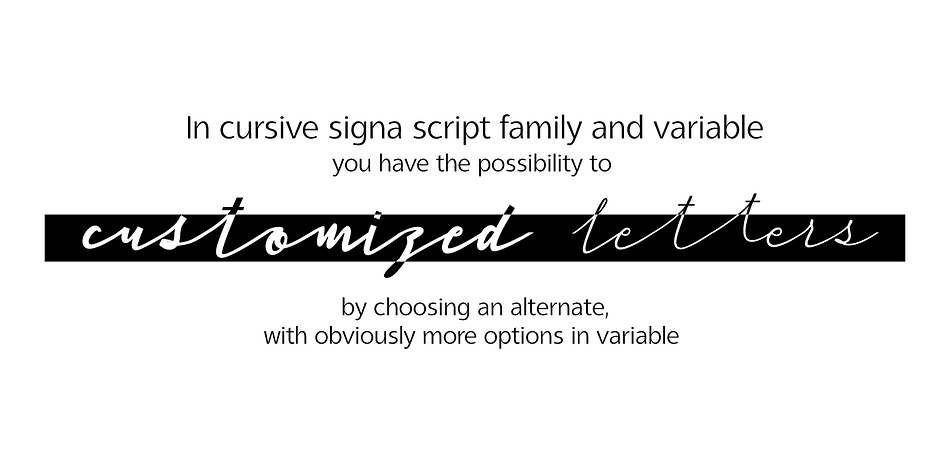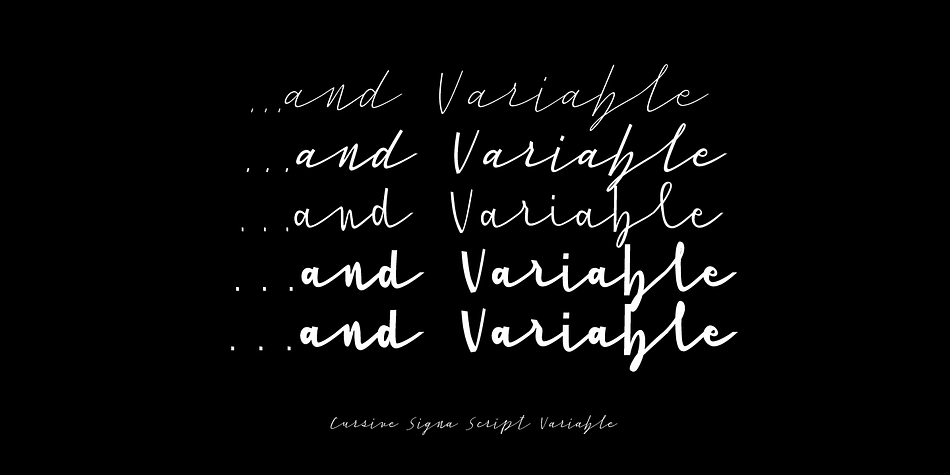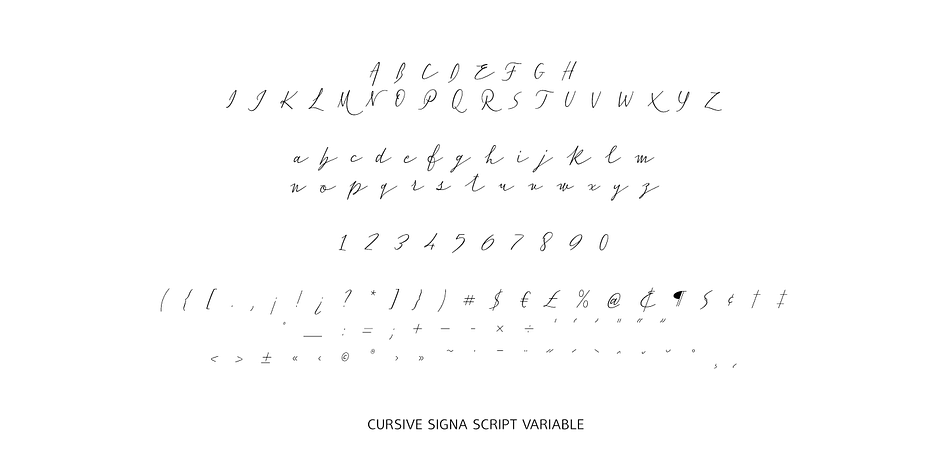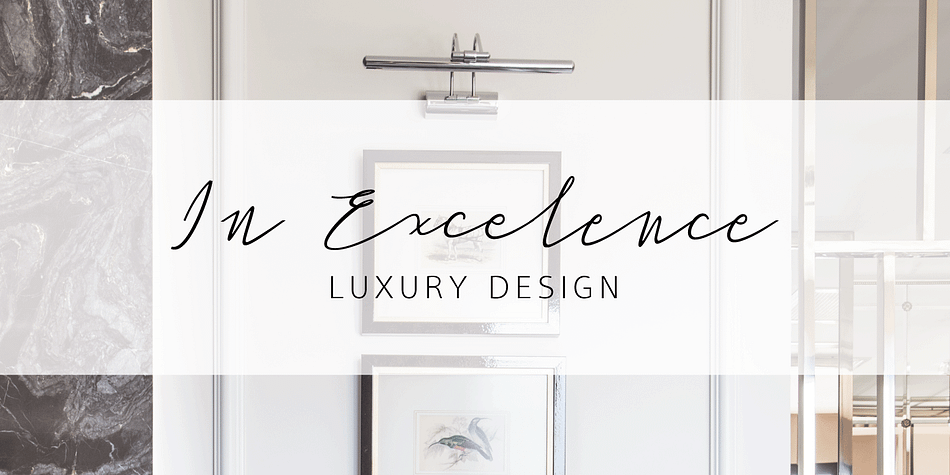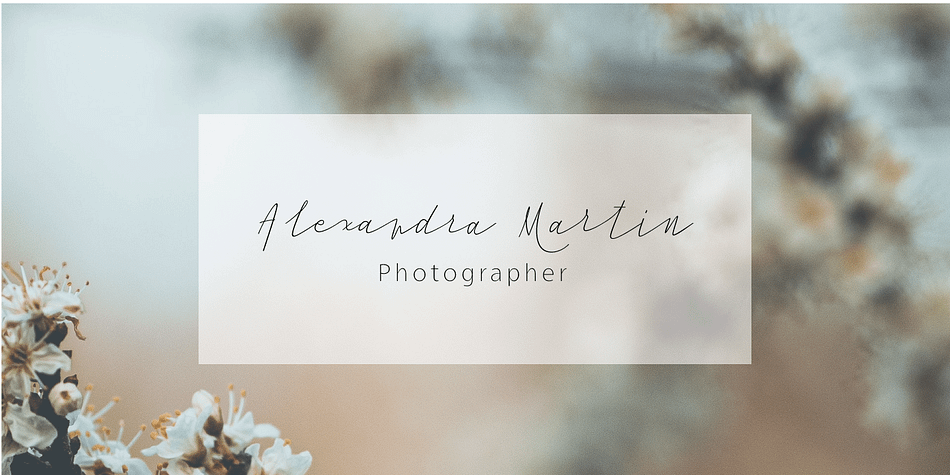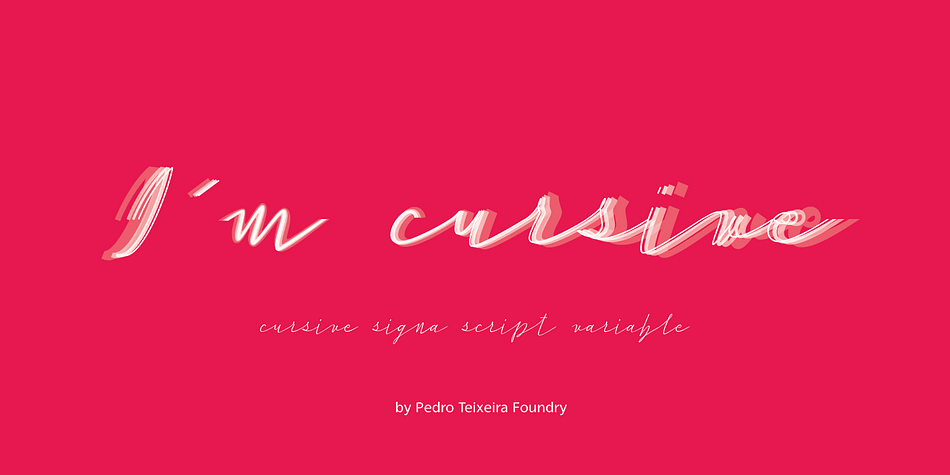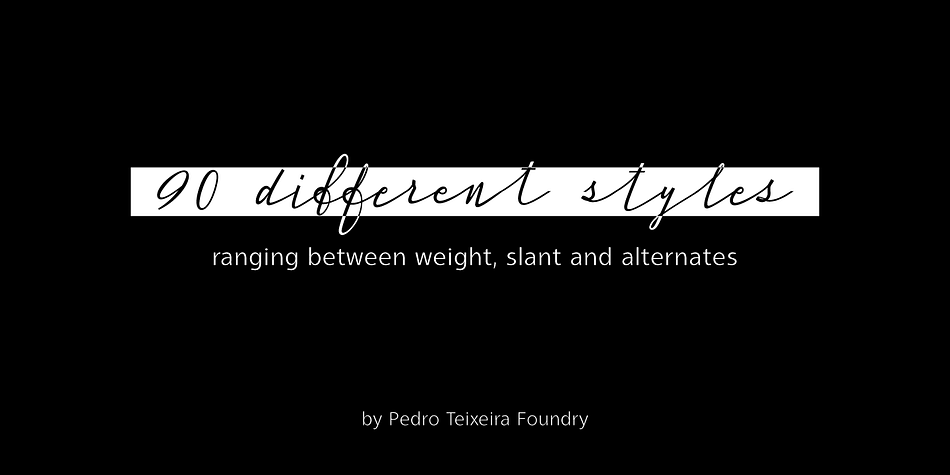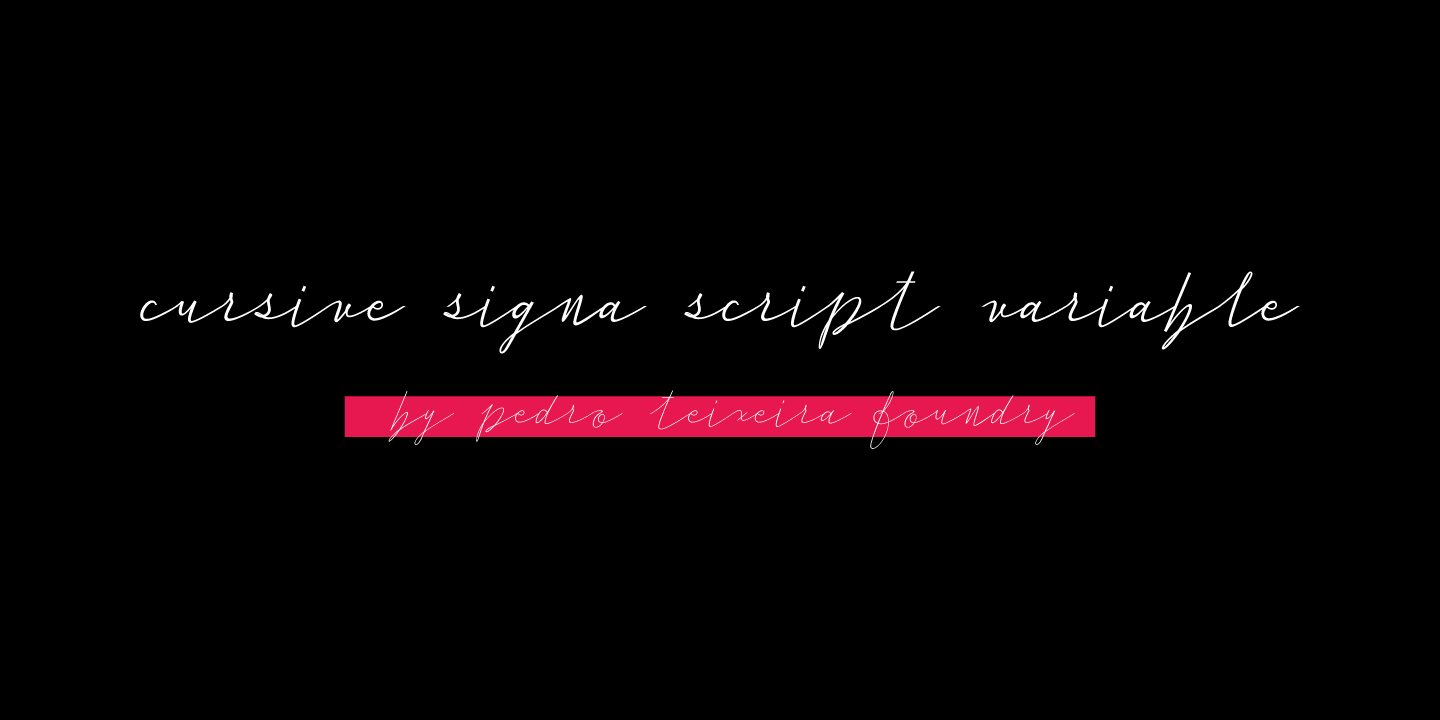
Designed by Pedro Teixeira, Cursive Signa Script Variable is a modern calligraphy and script font published by Pedro Teixeira.
Cursive Signa Script Variable, quite possibly the first true cursive and signature variable font. It has 90 instances that range between weight, slant and alternates. It can be use in a lot of projects, like logos, end of a statement, pairing with a beautiful sans serif like Aleante, in a title, invites and so on. Designed by Pedro Alexandre Teixeira